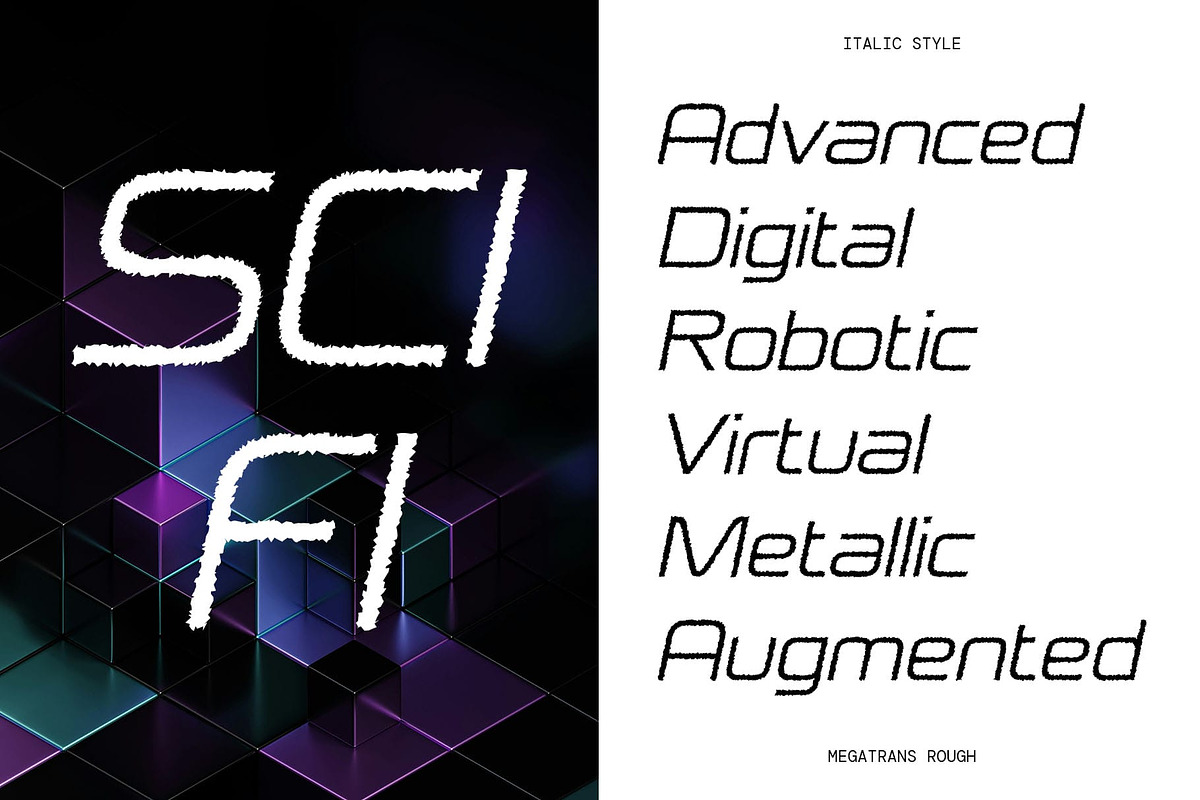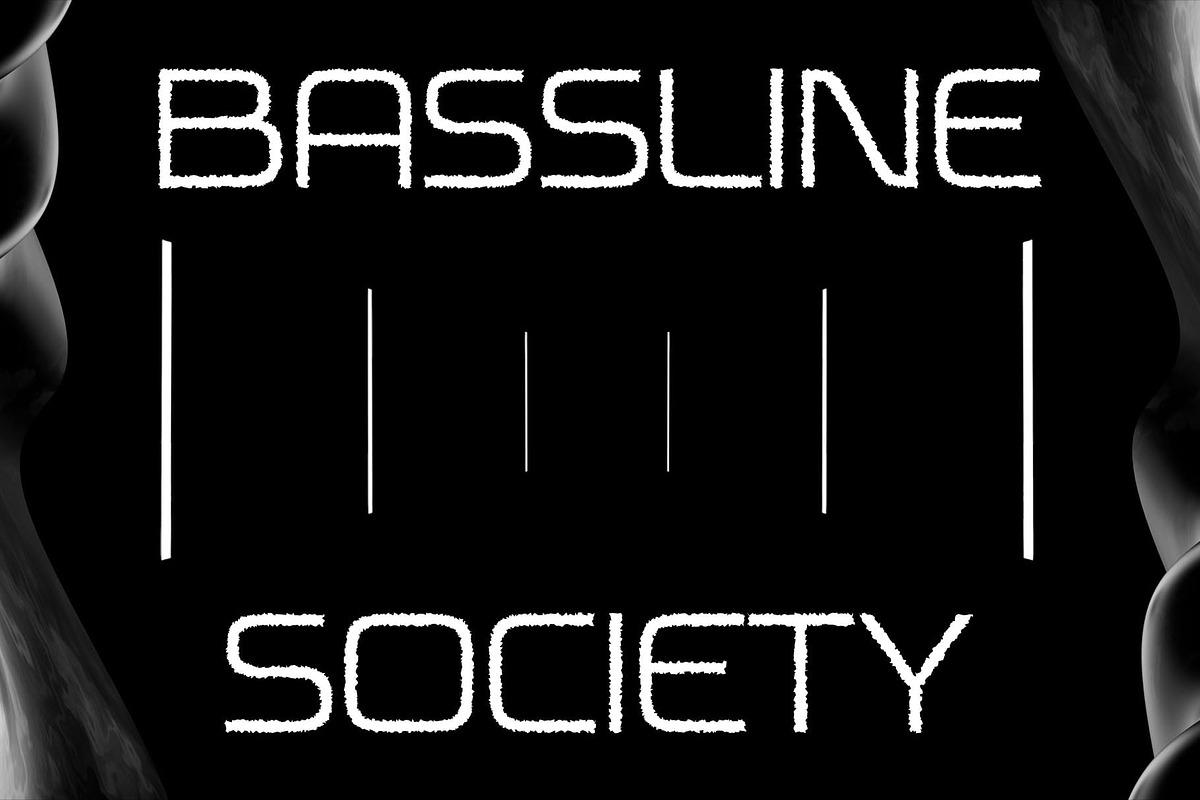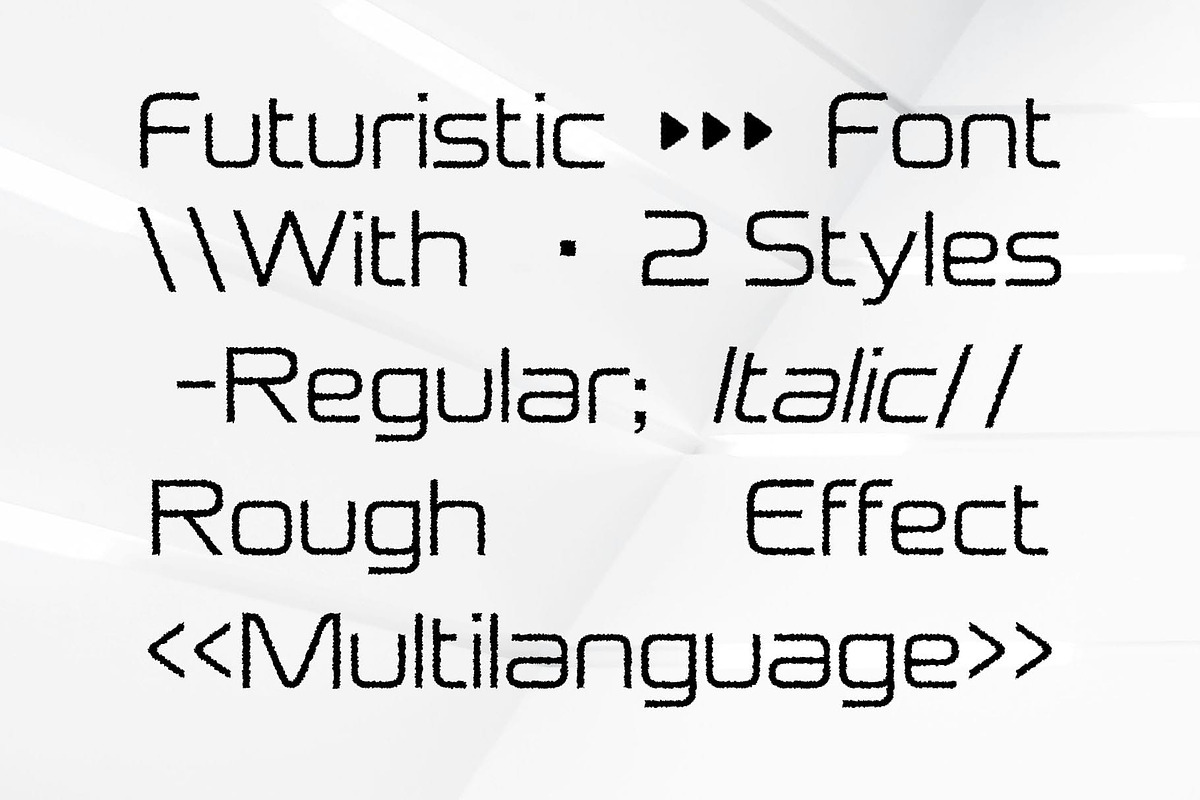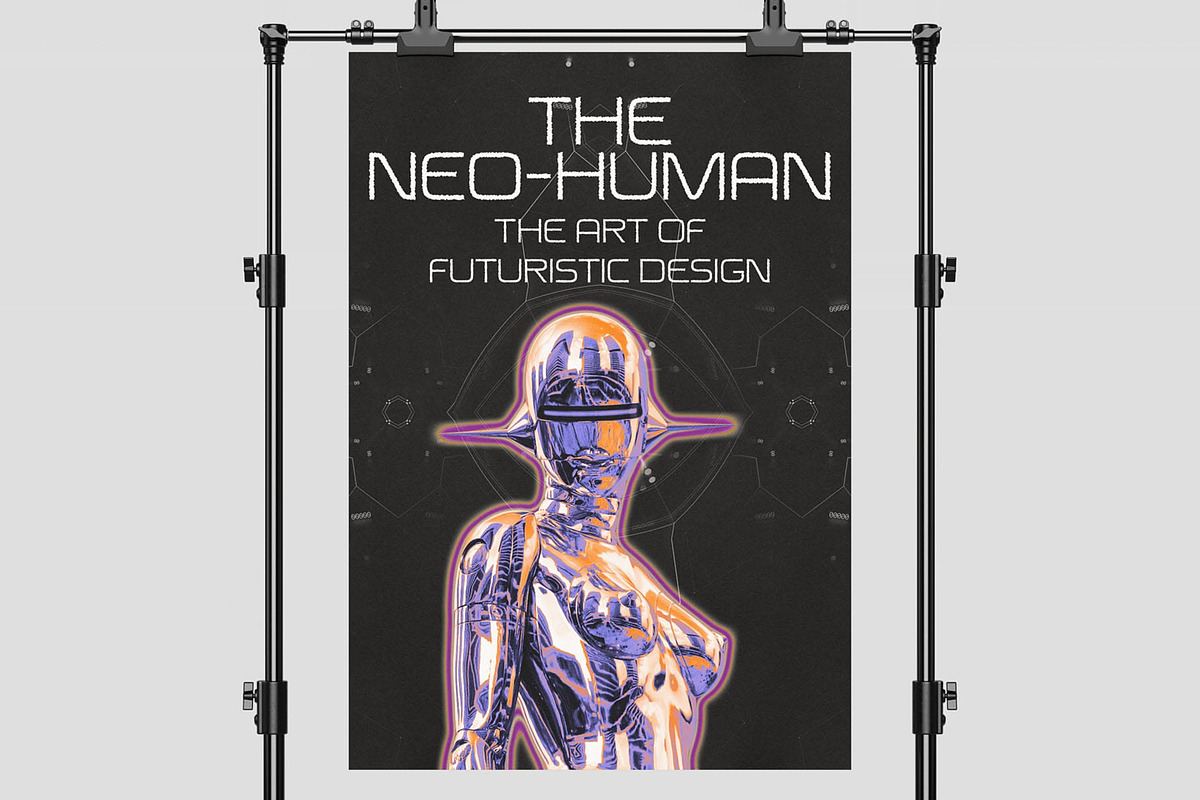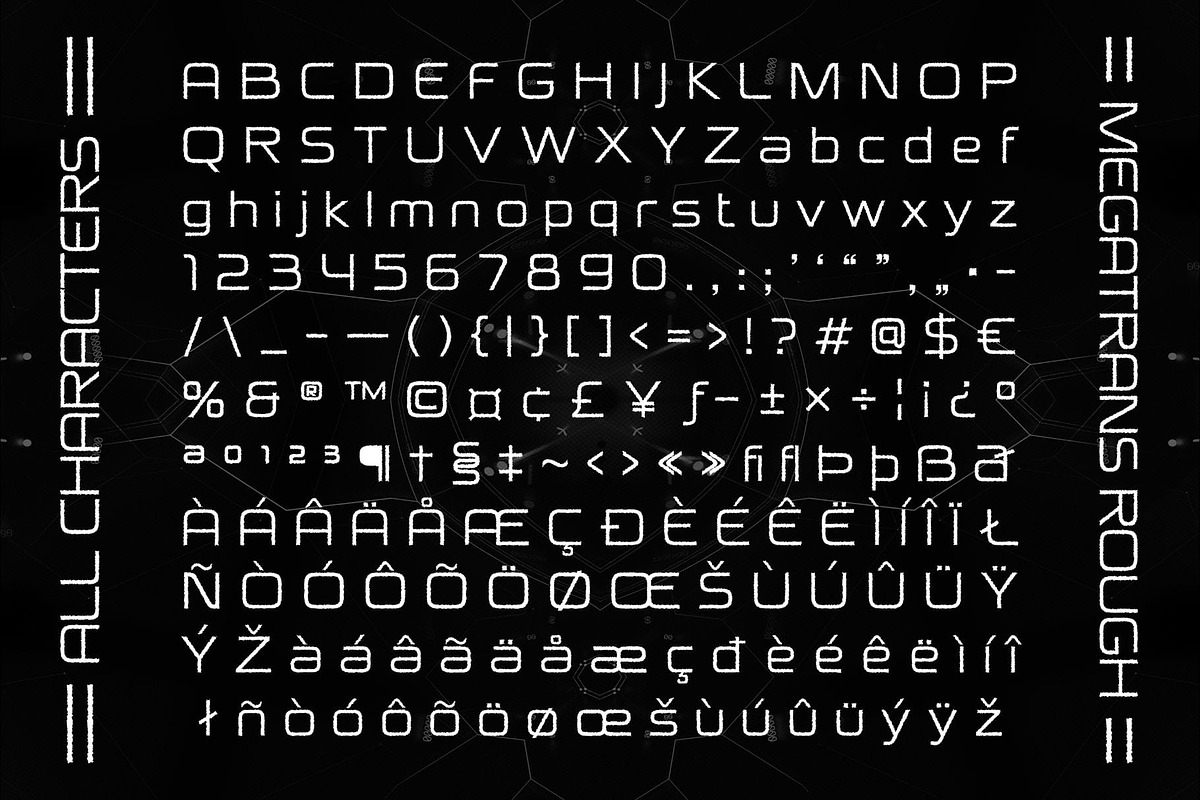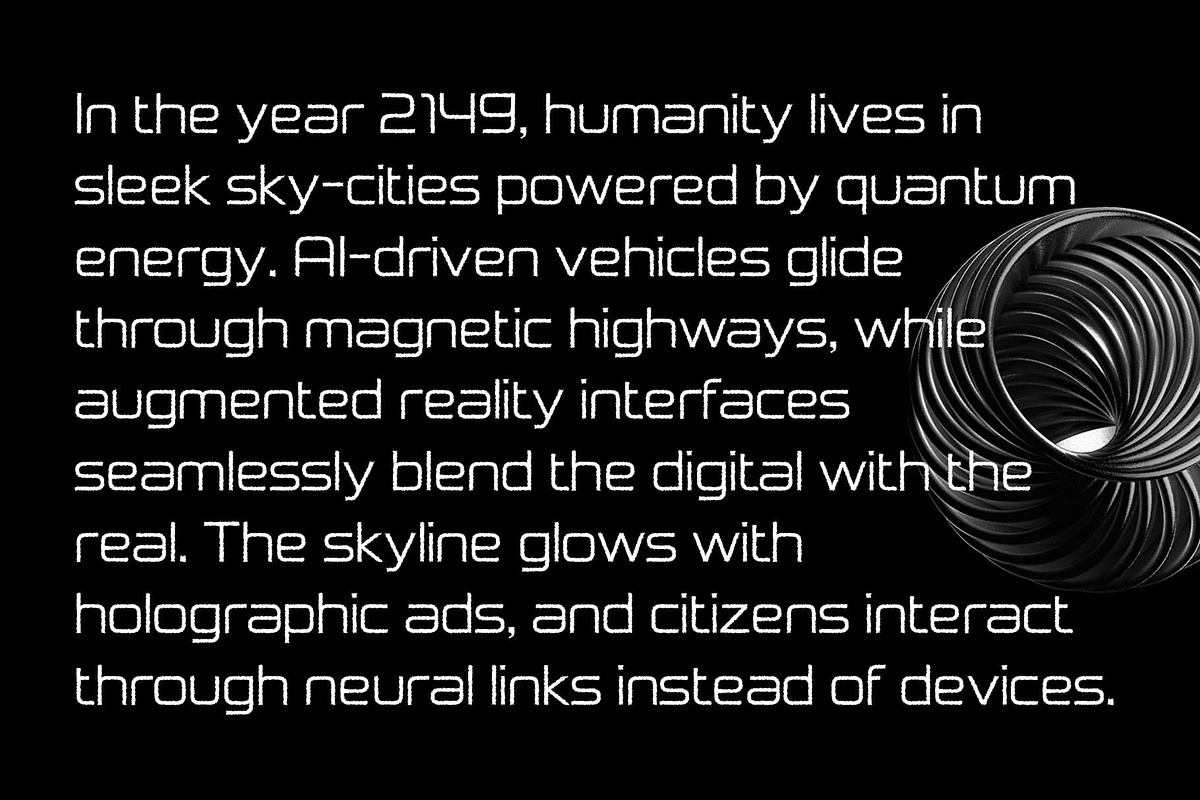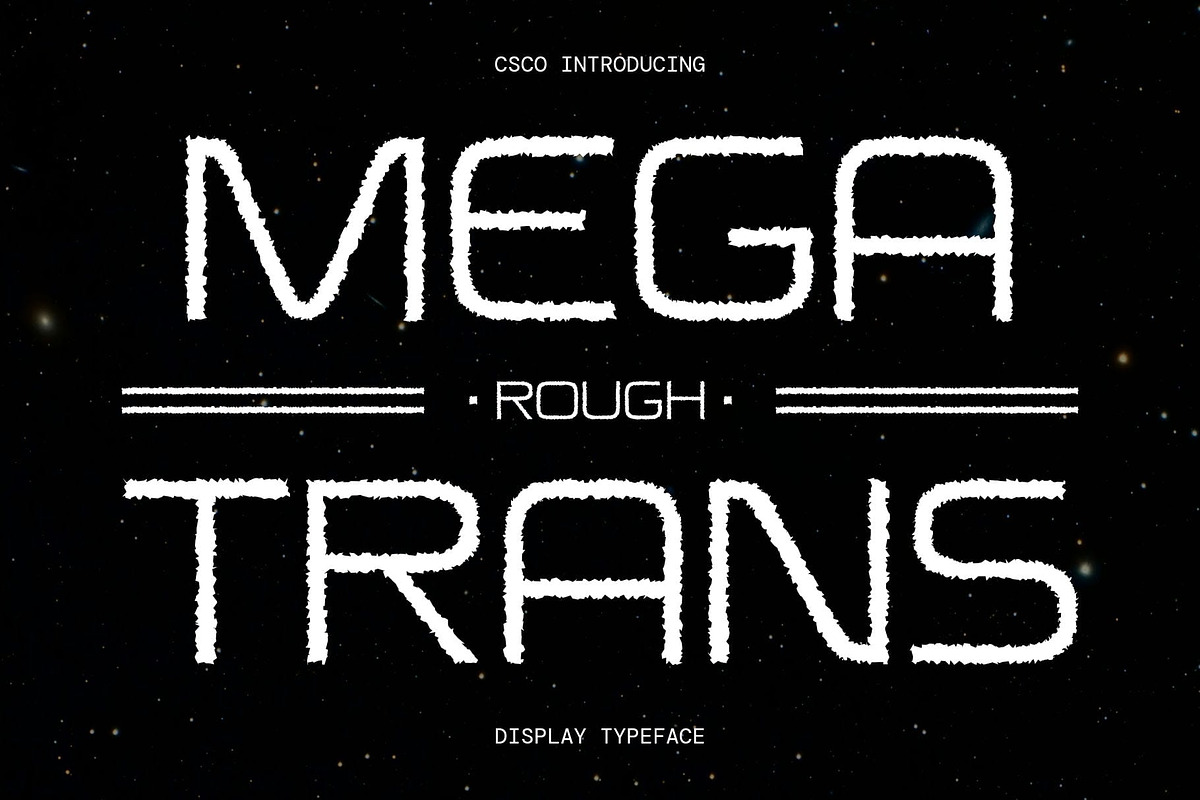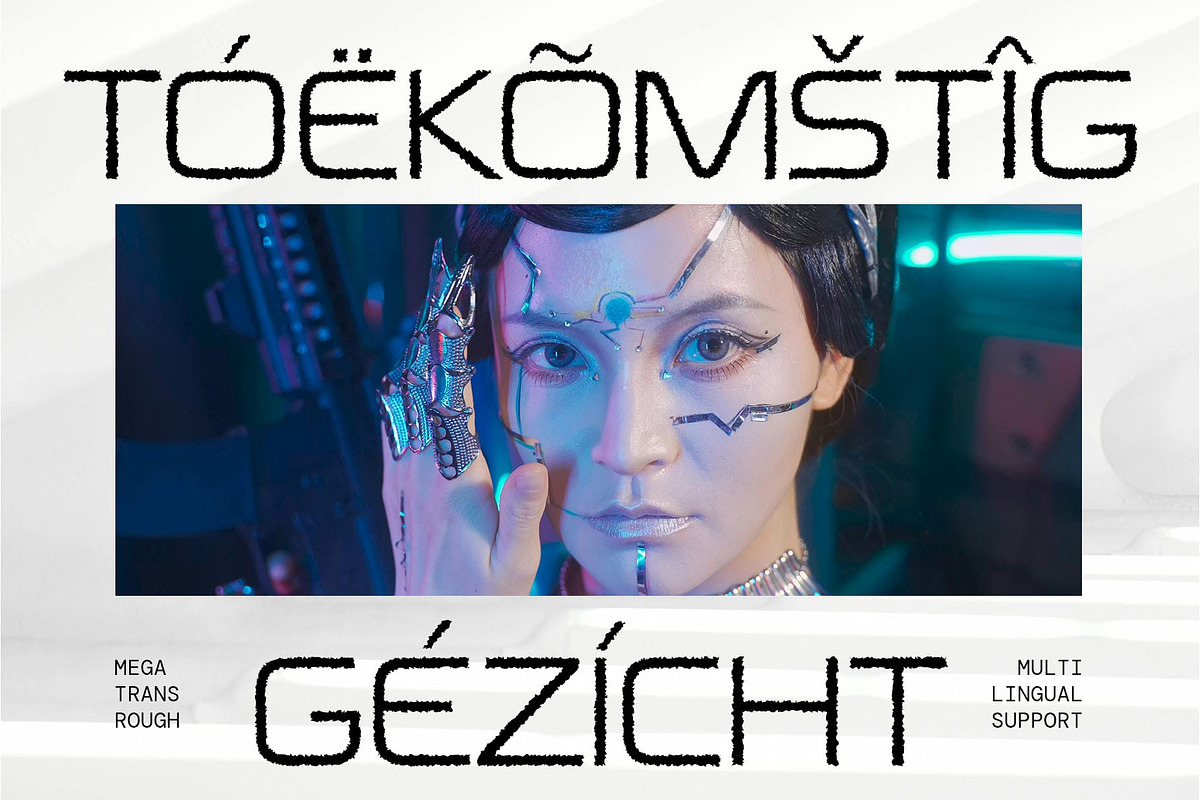
Megatrans Rough
Megatrans Rough Font – Where Futurism Meets Raw Texture
Modern Sans Serif with Futuristic Structure Megatrans Rough is a modern sans serif font that merges futuristic aesthetics with a bold, innovative form. Its sharp angles and clean, precise lines project a sense of progress and high-tech sophistication, making it ideal for forward-thinking and visually impactful design.
Geometric and Contemporary Design Built on a strong geometric foundation, Megatrans Rough emphasizes symmetry, clarity, and visual balance. The structured layout brings order and professionalism, while its contemporary style ensures the font feels relevant and aligned with modern design trends. It’s a versatile choice for both experimental and functional layouts.
Textured Rough Effect for Grit and Depth Adding a rough effect introduces raw, tactile texture that contrasts with the font’s clean base. This gritty overlay brings warmth, personality, and a handcrafted feel, enhancing visual interest and offering a sense of realness amid the futuristic form. The roughness softens the digital precision, making the font feel grounded and dynamic.
Ideal for Bold and Innovative Visuals Megatrans Rough is perfect for branding, posters, websites, and creative projects that aim to stand out. It excels in designs that need to blend sleek modernity with a raw, expressive edge—ideal for technology, streetwear, music visuals, or any concept seeking to balance innovation with individuality.